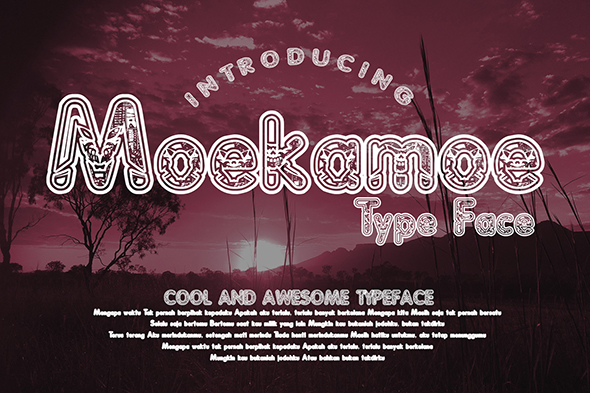
Unleash the whimsy and charm of your designs with Moekamoe Font, a decorative font family that sparkles with uniqueness. Crafted with meticulous attention to detail by the talented artist Gblack Id, Moekamoe is a treasure trove of visual delight, ready to elevate your creative projects to new heights.
Immerse yourself in the boundless possibilities of Moekamoe. Its versatile nature allows you to weave magic into a myriad of designs, from captivating headlines that demand attention to book covers that whisper tales of enchantment. Unleash the enchantment invitations that promise a touch of whimsy, or let your imagination run wild as you create posters that burst with vibrant energy.
Moekamoe is not just a font; it's a gateway to a world where boundless creativity flourishes. Embrace the chance to stand out from the mundane and embrace the extraordinary. Let Moekamoe infuse your designs with a sprinkle of enchantment, a touch of whimsy, and a dash of captivating charm.
With Moekamoe, you'll never be short on inspiration. Its playful and captivating style effortlessly captures the eye, inviting viewers to embark on a journey of visual wonder. Let your imagination soar as you explore the limitless possibilities that await you.